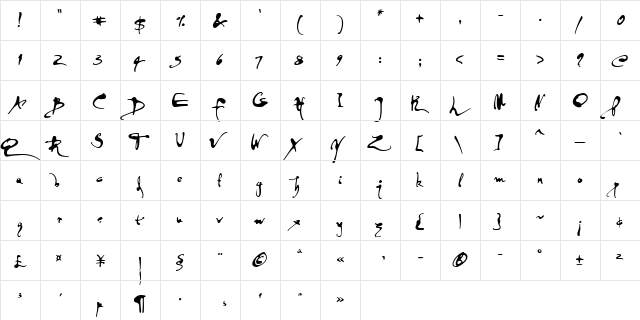
PF DaVinci Script Pro Inked Regular
| Foundry | Parachute? Worldwide |
| Designer | Panos Vassiliou/Dimitris Foussekis |
Design Context for PF DaVinci Script Pro Inked Typeface
PF DaVinci Script Pro Inked flows with the natural rhythm of handwritten lettering, making it ideal for designs that call for warmth and personal expression.